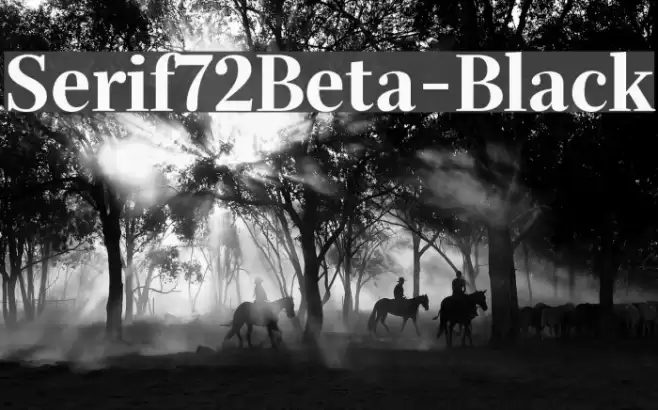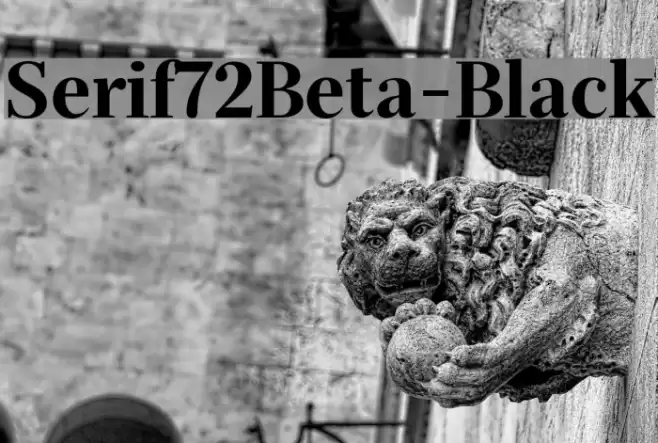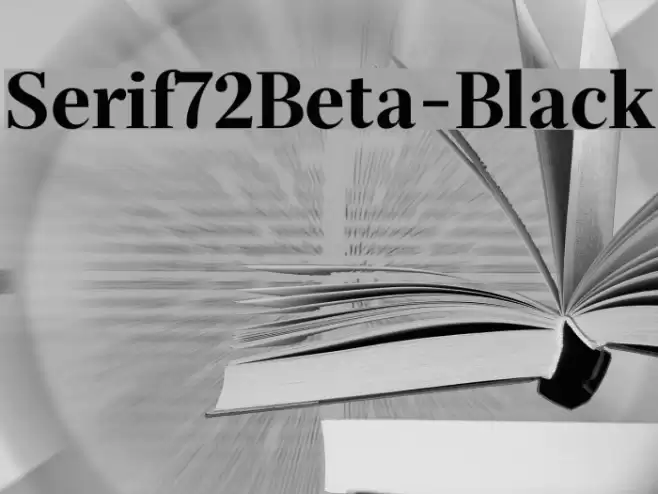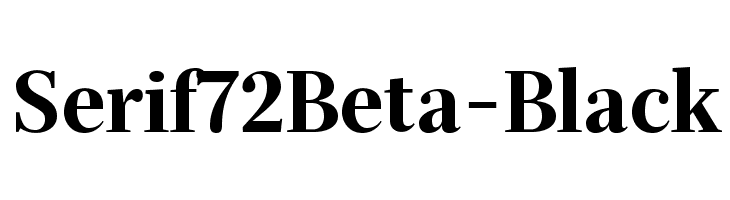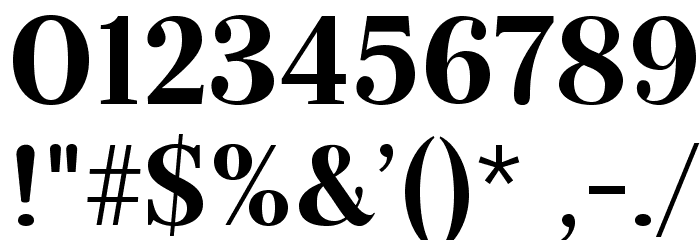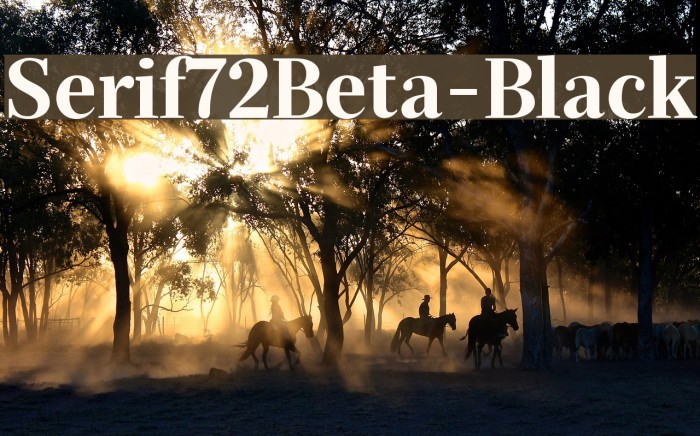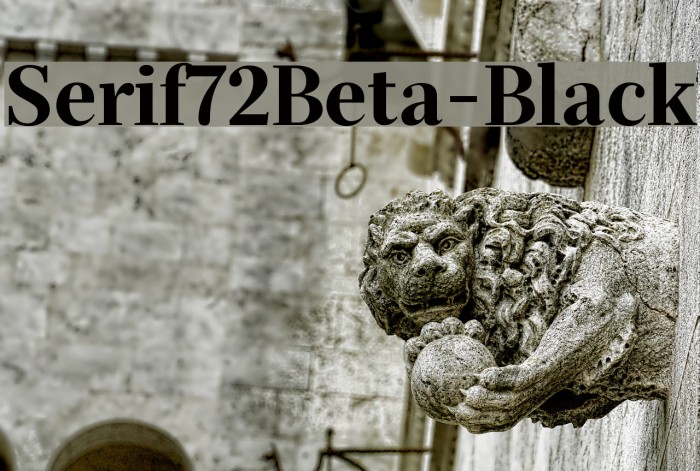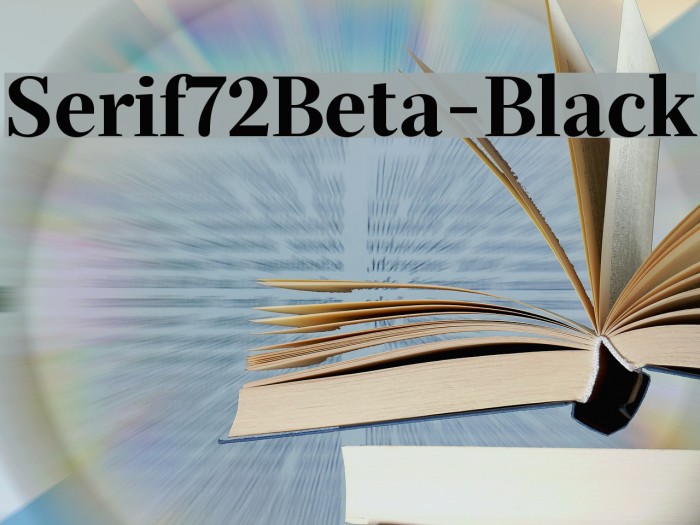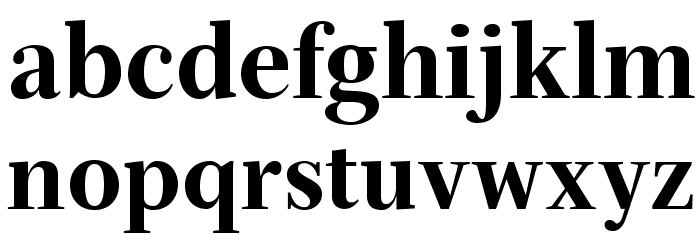
Serif72Beta-Black Font
Serif72Beta-Black Description
This font exhibits a strong and authoritative presence with its bold, thick strokes and classic serif design. The characters are well-defined, featuring sharp serifs that enhance readability and lend a traditional feel. The uppercase letters are particularly striking, with a commanding height and balanced proportions. The lowercase letters maintain a consistent style, ensuring a cohesive look across text. Numbers are clear and distinct, making them suitable for both display and body text. Special characters are elegantly integrated, maintaining the font's overall aesthetic. This font is ideal for projects that require a touch of sophistication and timeless elegance.
A bold, classic serif font with strong, authoritative strokes and sharp serifs from Uncategorized fonts.
- Proposed Projects: Ideal for editorial design, book covers, formal invitations, and branding that requires a classic touch.
- Overall Style: Classic